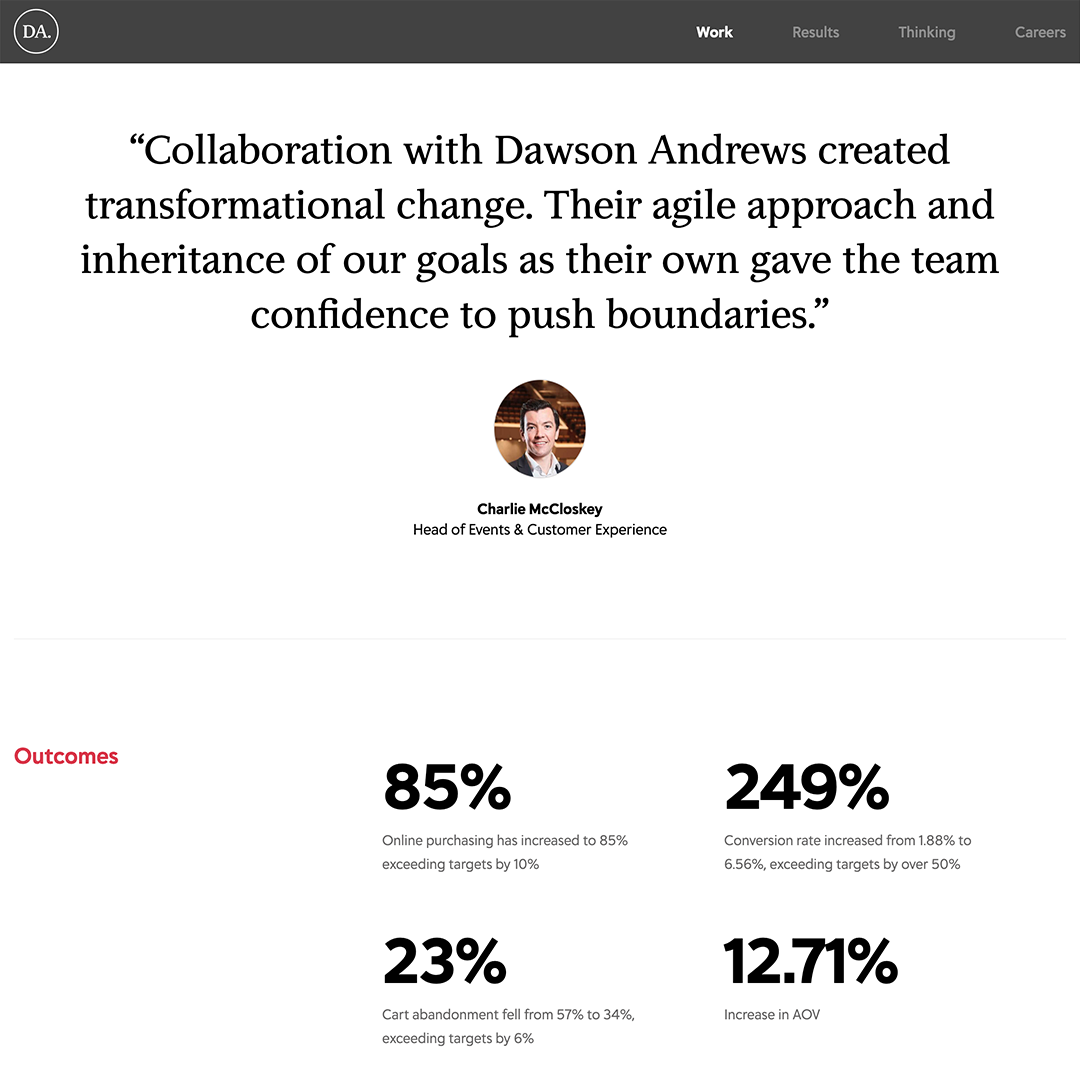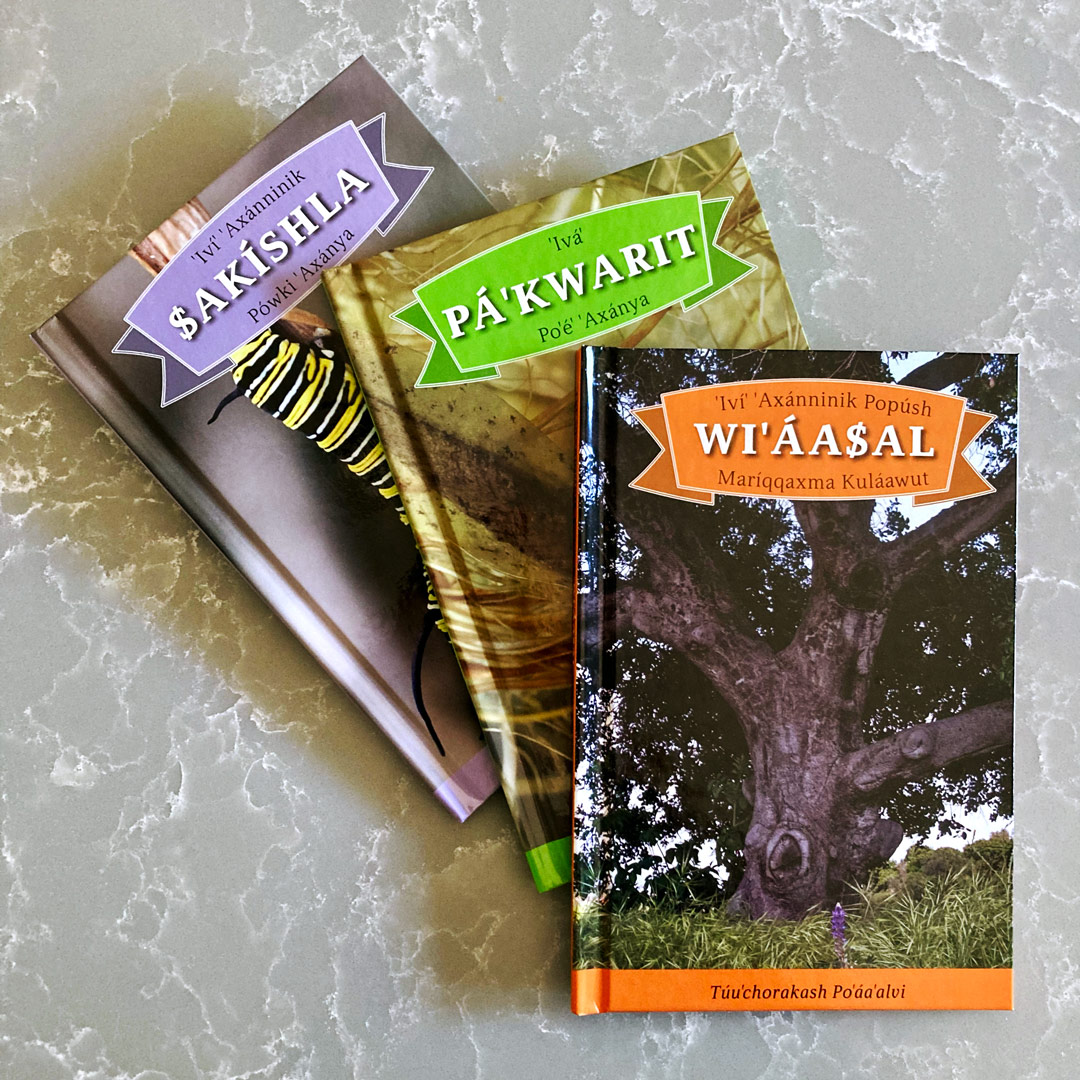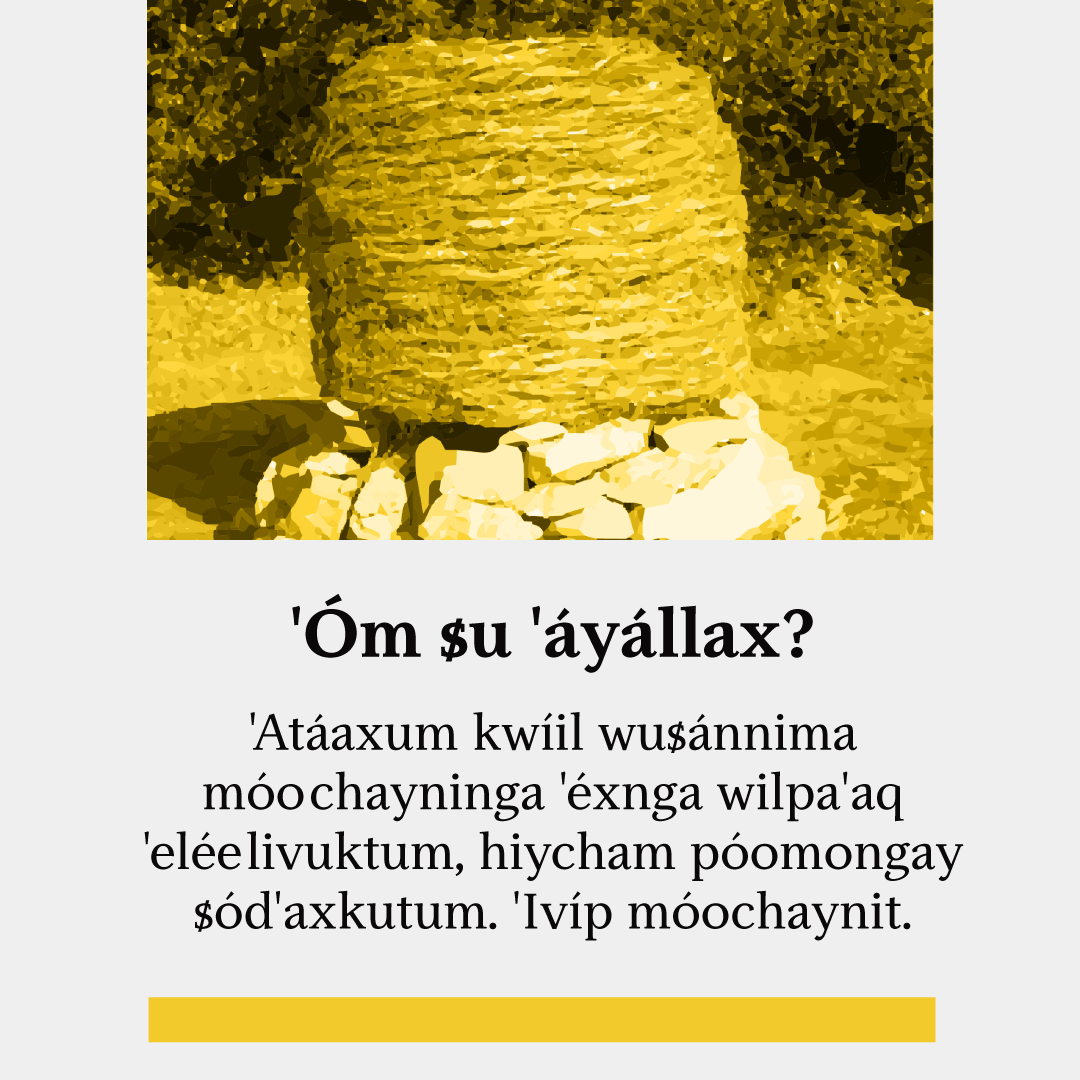
Helfa™
A timeless design with bracketed serifs and scholarly ideals.
Thoughtfully planned, lovingly drawn, and carefully crafted by Delve Withrington, Helfa will at once seem like an old friend. The stems are not straight lines, rather they are gently concave, curving inward very slightly at the middle. The serifs are subtly cupped and taper to a finish at shallow angles.
Curved strokes have stress strategically located along the circumference and the wedge-shaped terminal is a recurring feature throughout the typeface, especially in the italics. Instead of simply being slanted or oblique, the italic forms are true, drawn italics, distinct from the upright roman letter forms. Made slightly narrower and lighter, the italics are balanced, allowing for differentiation but still blending into a text setting beautifully.
Readability is baked into the design of Helfa with a generous x-height and a reasonable contrast in stroke weight variation. The sturdy, bracketed serifs hold up confidently below 12 points but are still graceful in larger settings. To retain more of a hand-made quality, glyphs with similar shapes like b, d, p, and q are individually drawn, not simply mirrored or rotated using computer software to avoid the letterforms looking mathematically perfect or repetitive. •!•